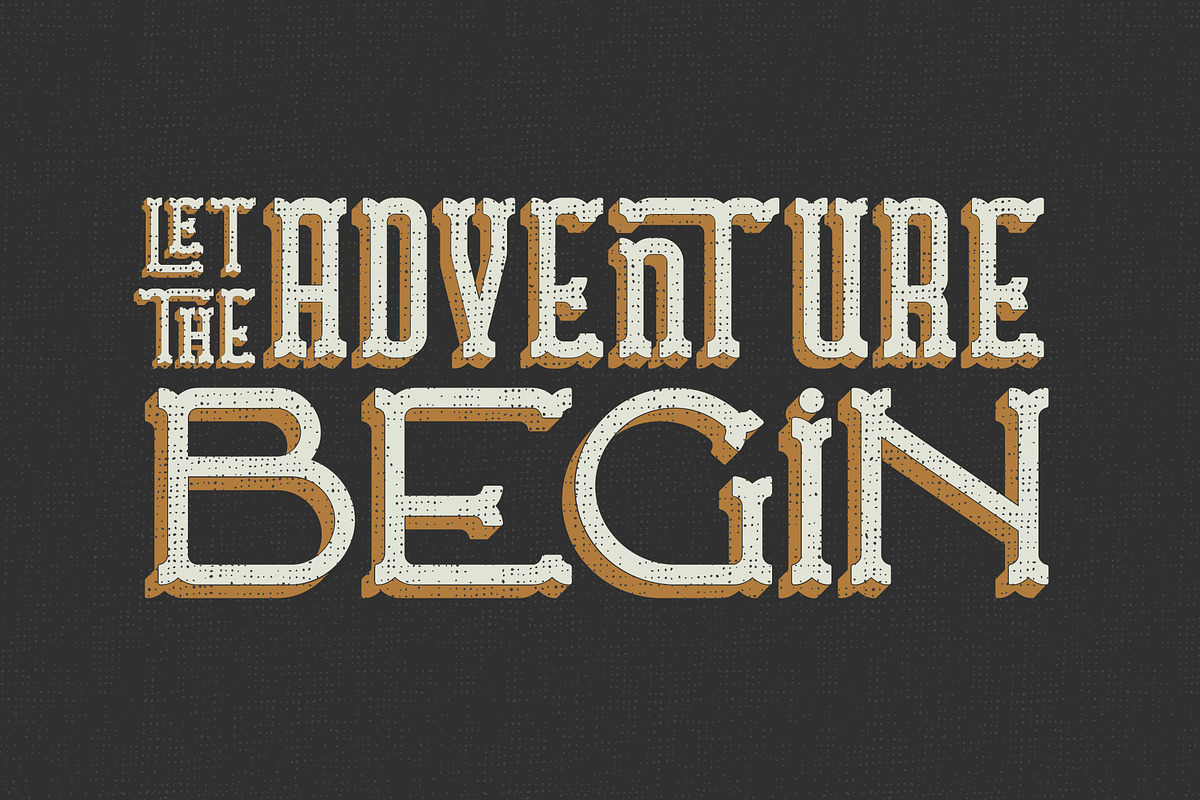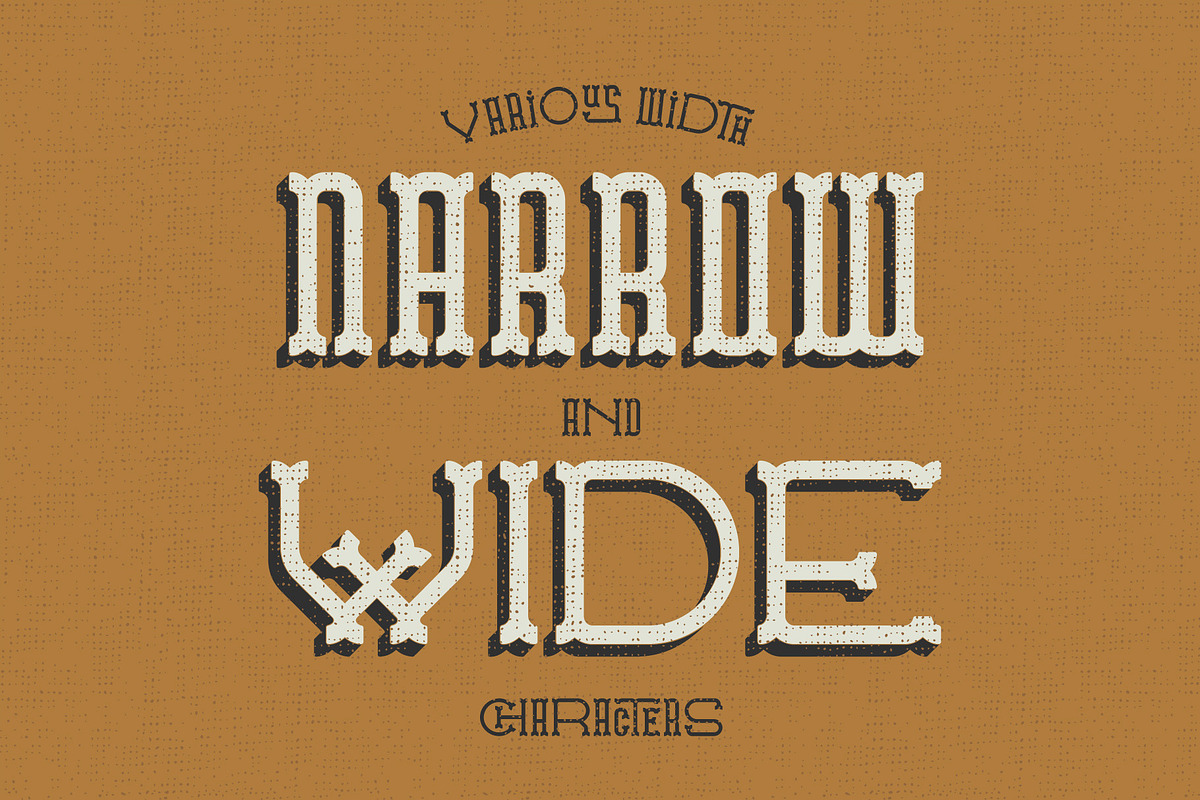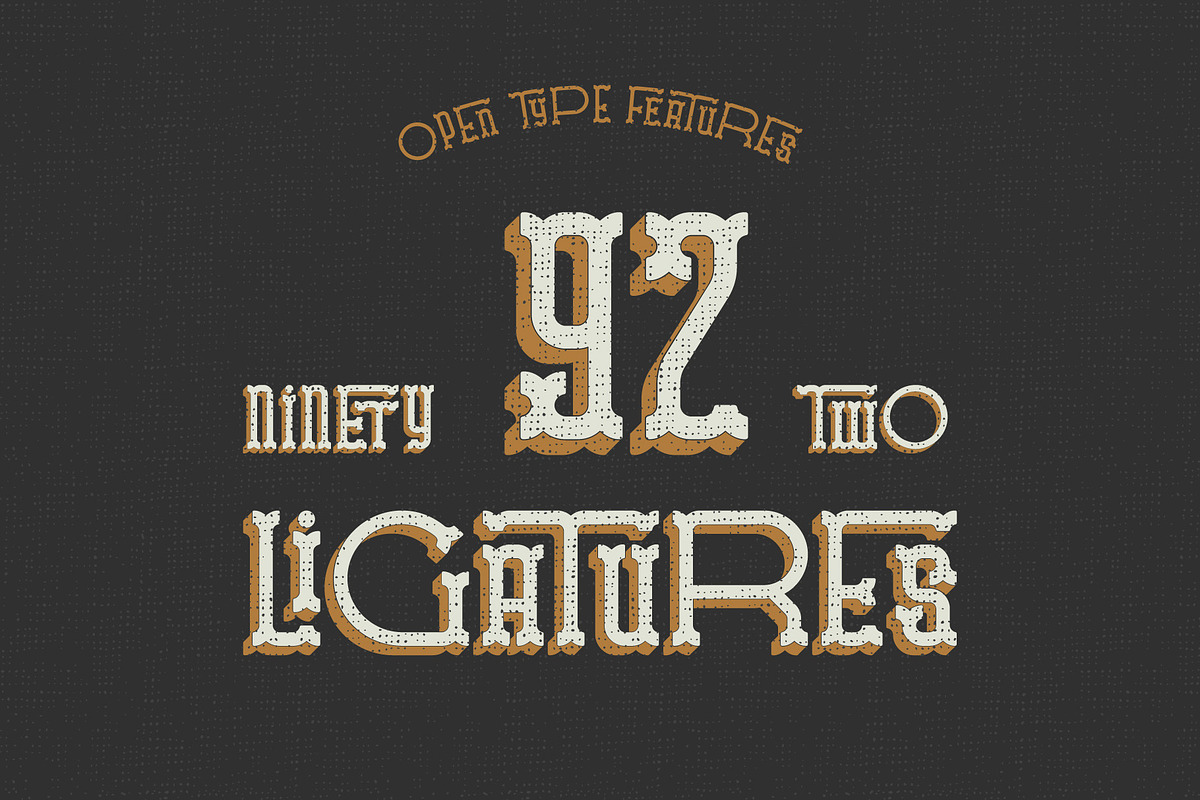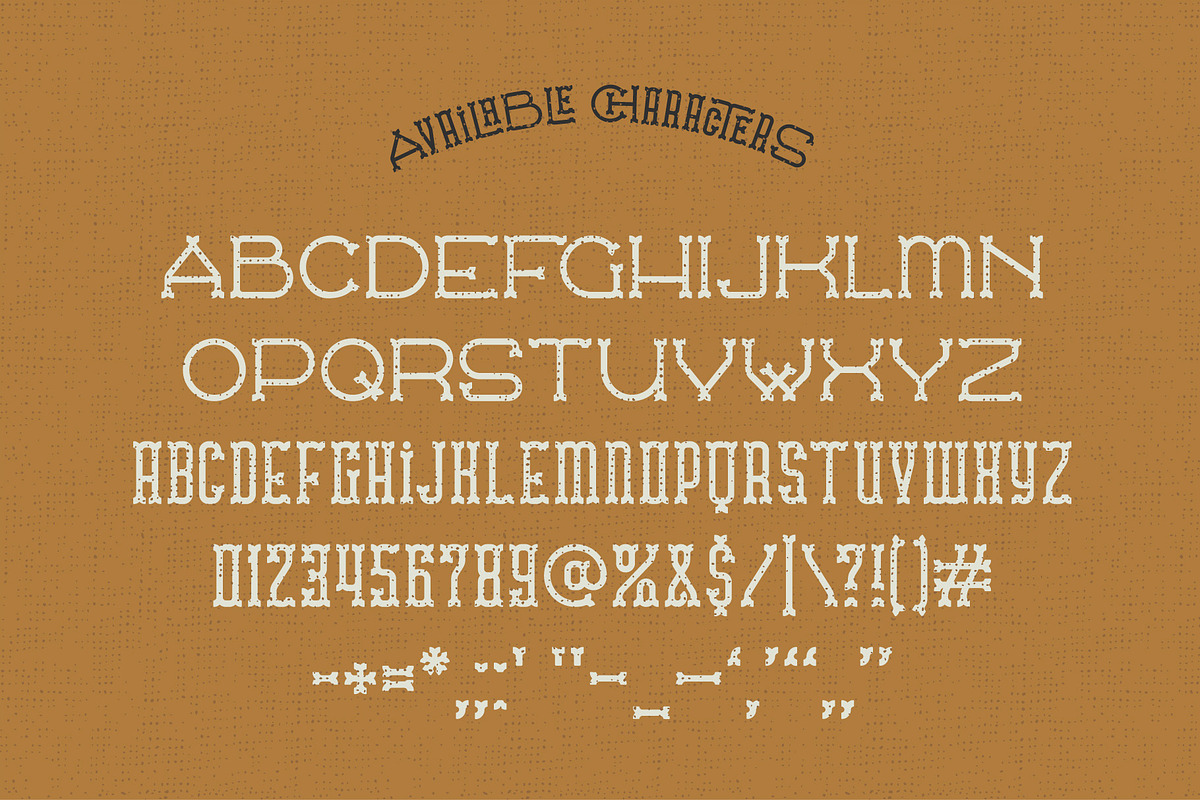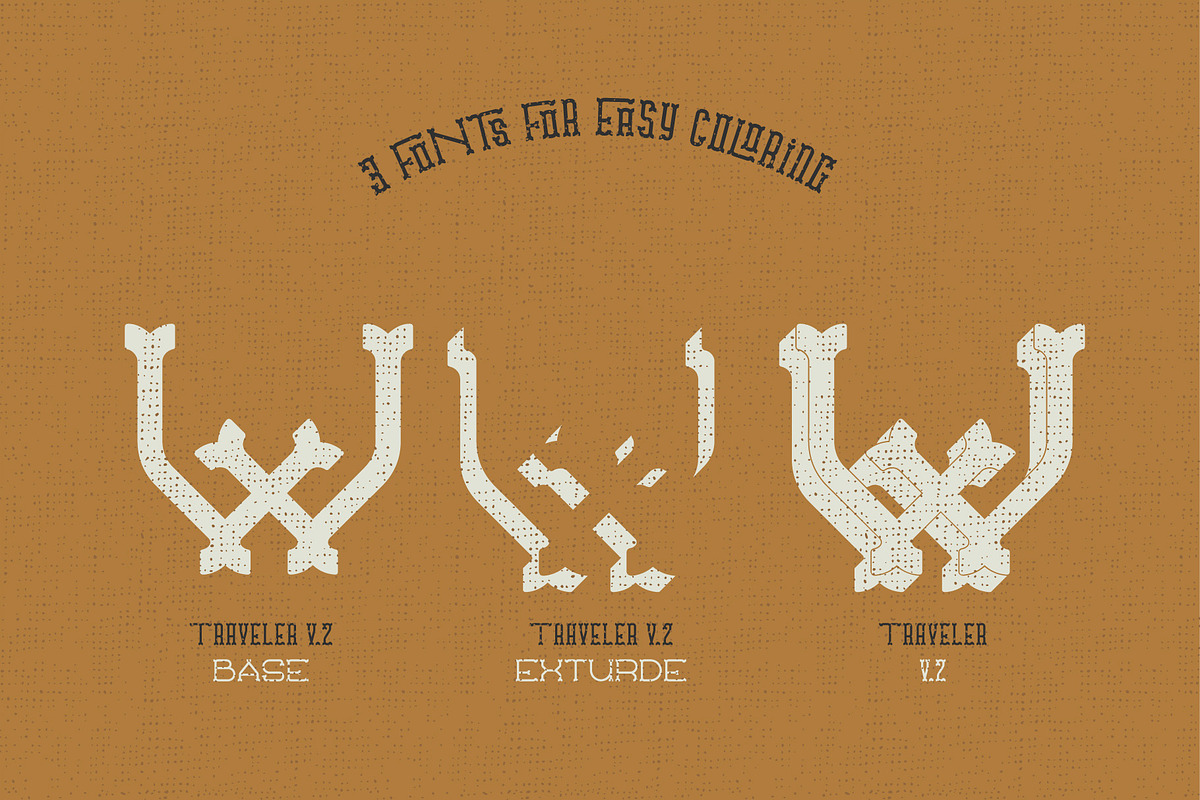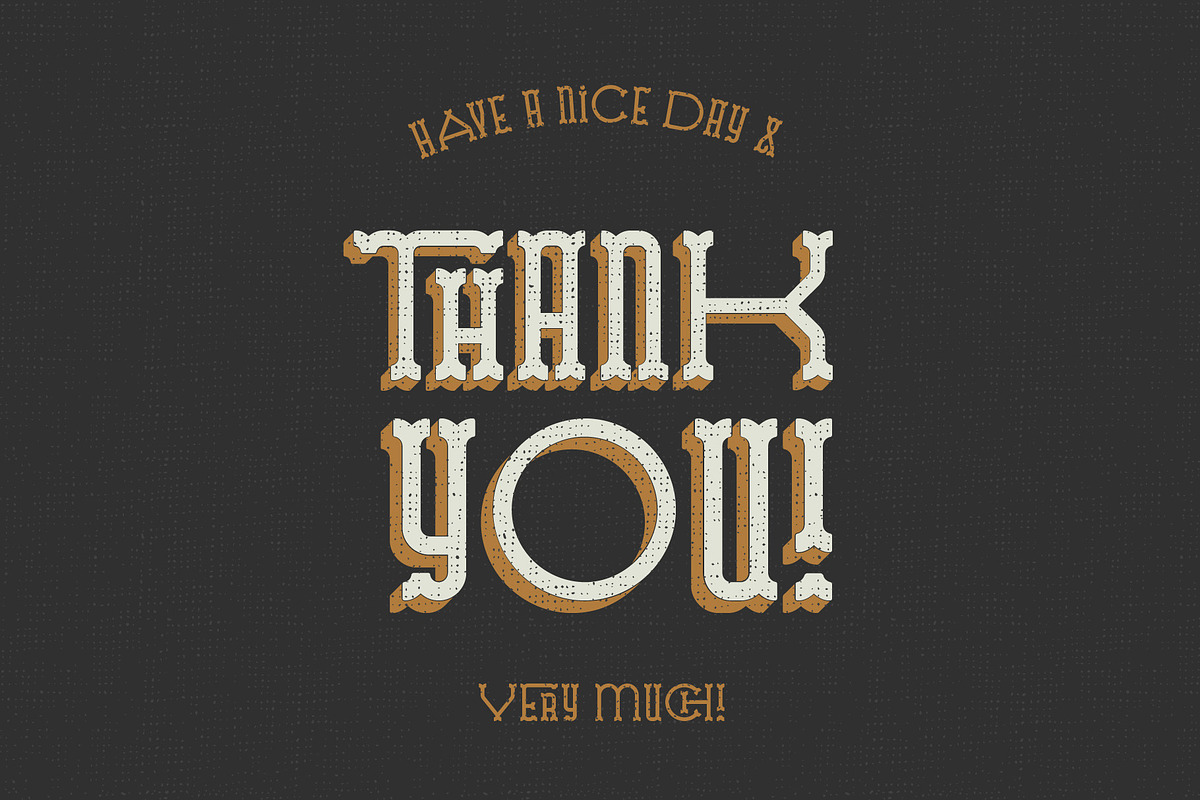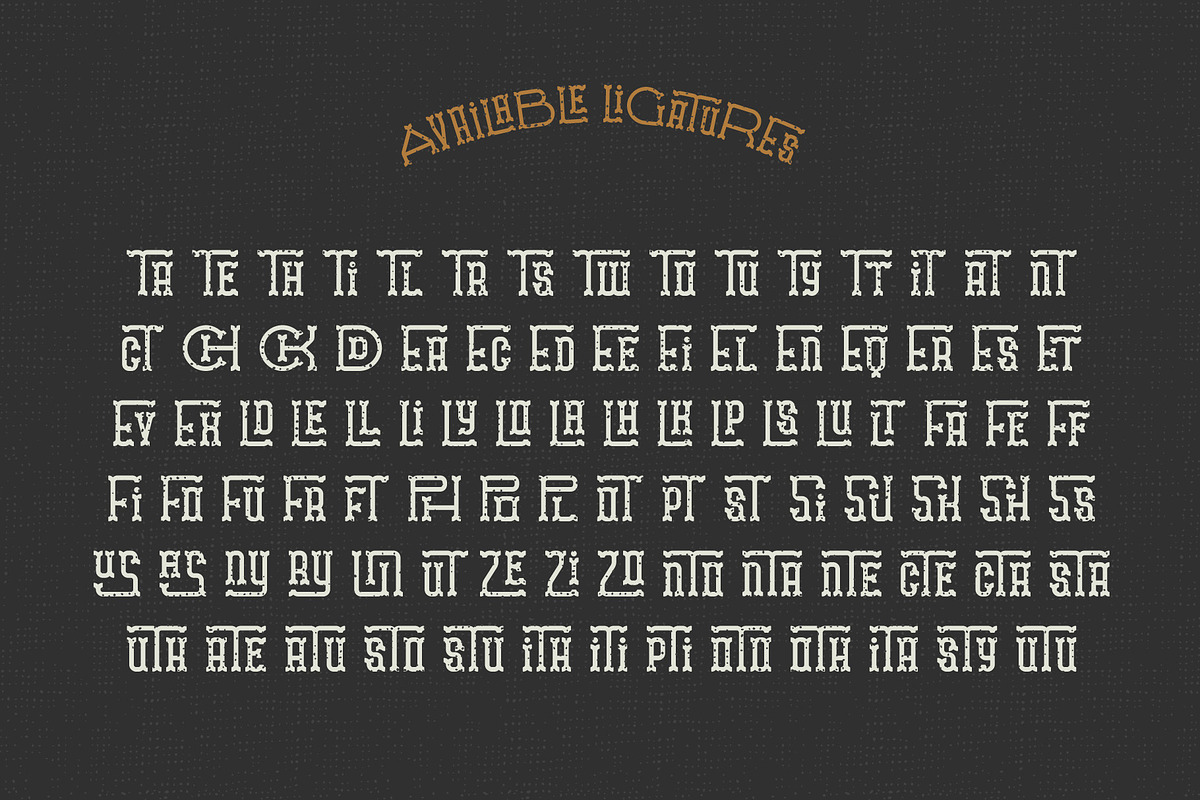
Traveler v.2 typeface
Traveler v.2 typeface by Gleb Guralnyk is a font selected for branding, posters, packaging, typography.
- Now it includes numbers & punctuation glyps (4th screenshot).
- Added much more ligatures - 92 instead 32 (6th screenshot).
- Also I've made a small cleanup of all characters paths and kern tuning.
- It's not very noticable but important ;) It has wide and narrow characters, and lots of ligatures (automatically replaceable with open type
- To apply ligatures you have to use lowercase characters.
Why Traveler v.2 typeface is worth a look
Traveler v.2 typeface by Gleb Guralnyk fits naturally into Branding, posters, packaging, typography.